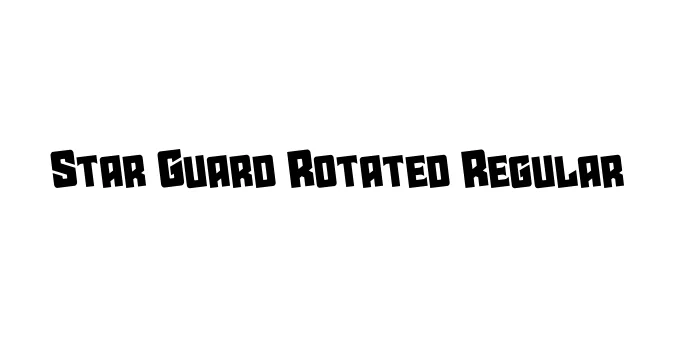
Star Guard Rotated Regular
Designed by Daniel Zadorozny
| Font Name | Star Guard Rotated |
| Designer | Daniel Zadorozny |
Star Guard Rotated Regular is a high-impact display typeface designed by Daniel Zadorozny of Iconian Fonts. This specific variant belongs to the expansive Star Guard family, which is celebrated for its bold, geometric construction and its strong ties to the science fiction and techno-futurist aesthetics. The 'Rotated' iteration provides a unique, dynamic perspective to the characters, leaning into a sense of velocity and mechanical precision that is ideal for high-energy visual storytelling.
The font features thick, blocky strokes and sharp, angular terminals that evoke the look of futuristic armor or spacecraft hull plating. Because it is part of the Iconian Fonts library, it maintains a level of versatility often sought after by independent creators and professional graphic designers alike. Its heavy weight and unconventional orientation make it a specialized tool for creating headers that demand attention, successfully bridging the gap between retro-futurism and modern digital branding.
Star Guard Rotated Regular Best Uses
Ideal for gaming clans, tech startups, and science fiction movie titles.
Perfect for large-scale headers on event flyers or cinematic promotional material.
Works exceptionally well for bold, graphic prints on streetwear and tech accessories.
Excellent for high-speed title sequences and digital lower-thirds in video production.